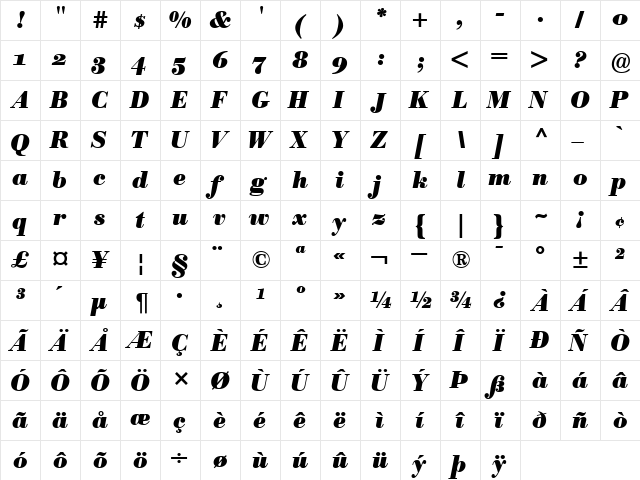
BodoniBEOldstyleFigures BoldItalic
Design Context for BodoniBEOldstyleFigures Typeface
BodoniBEOldstyleFigures carries the refined structure of traditional serif typography, with bracketed terminals and considered proportions that communicate credibility and craft. The slanted form adds forward momentum and visual energy. Its bold stroke weight gives it real presence on the page.
Pro Tip: Set BodoniBEOldstyleFigures with slightly loose tracking in headlines to let each letterform's detail read clearly at display sizes.